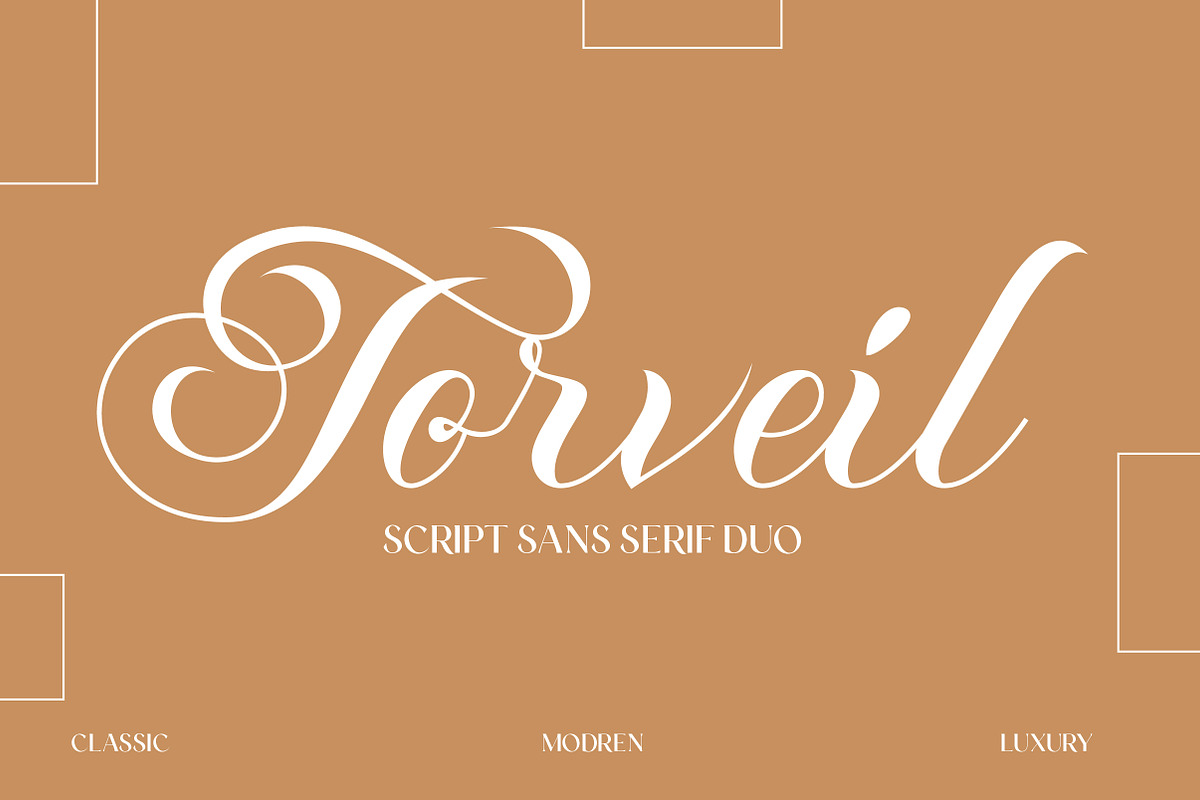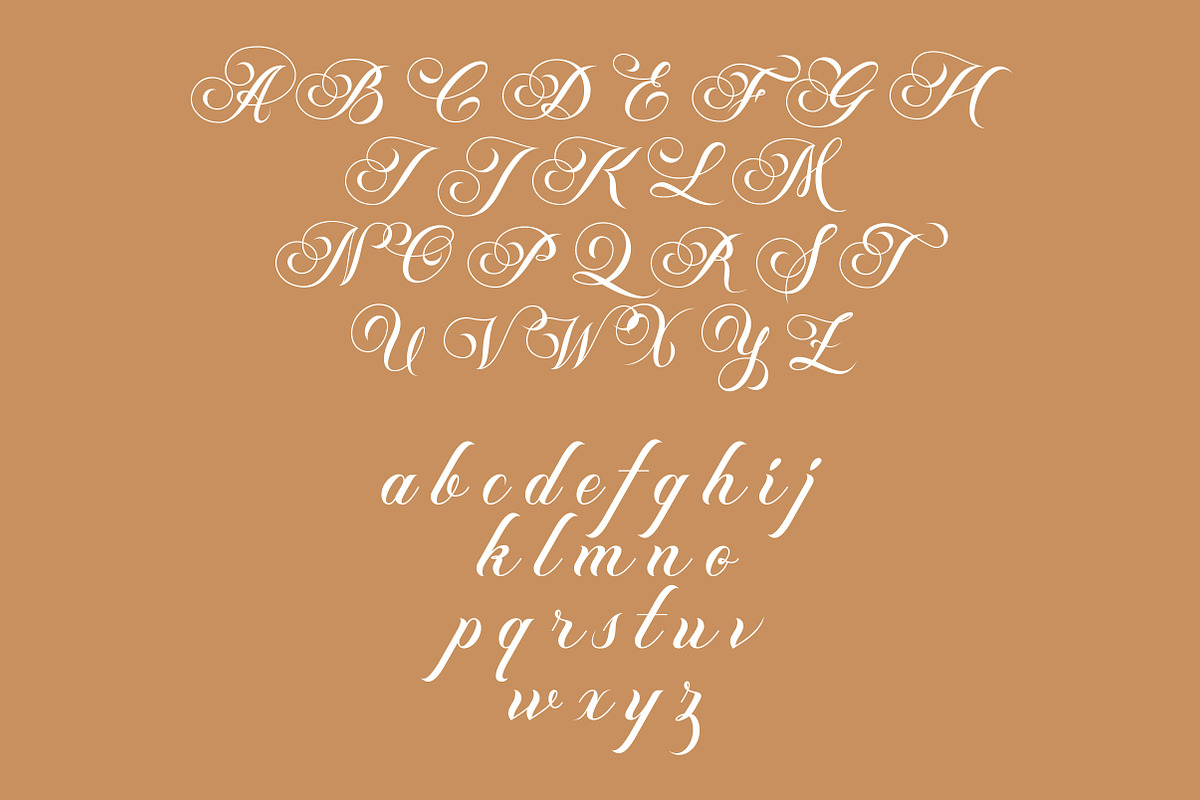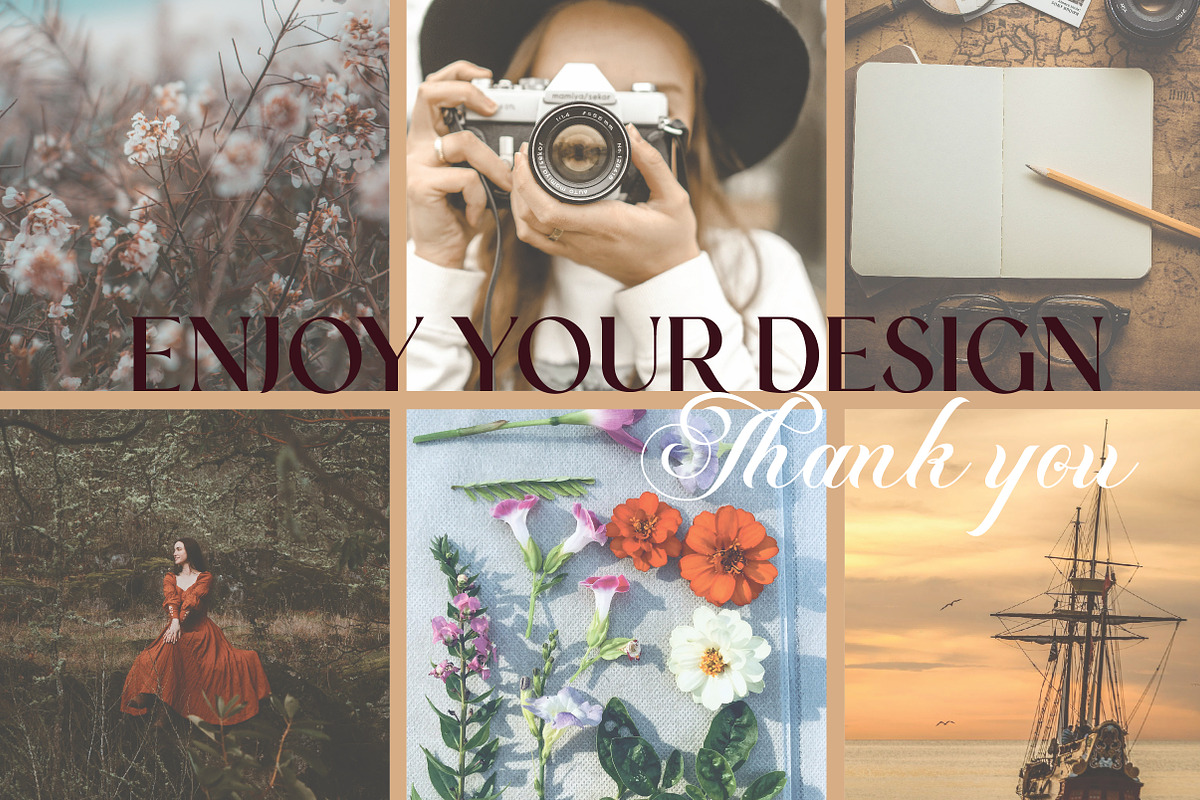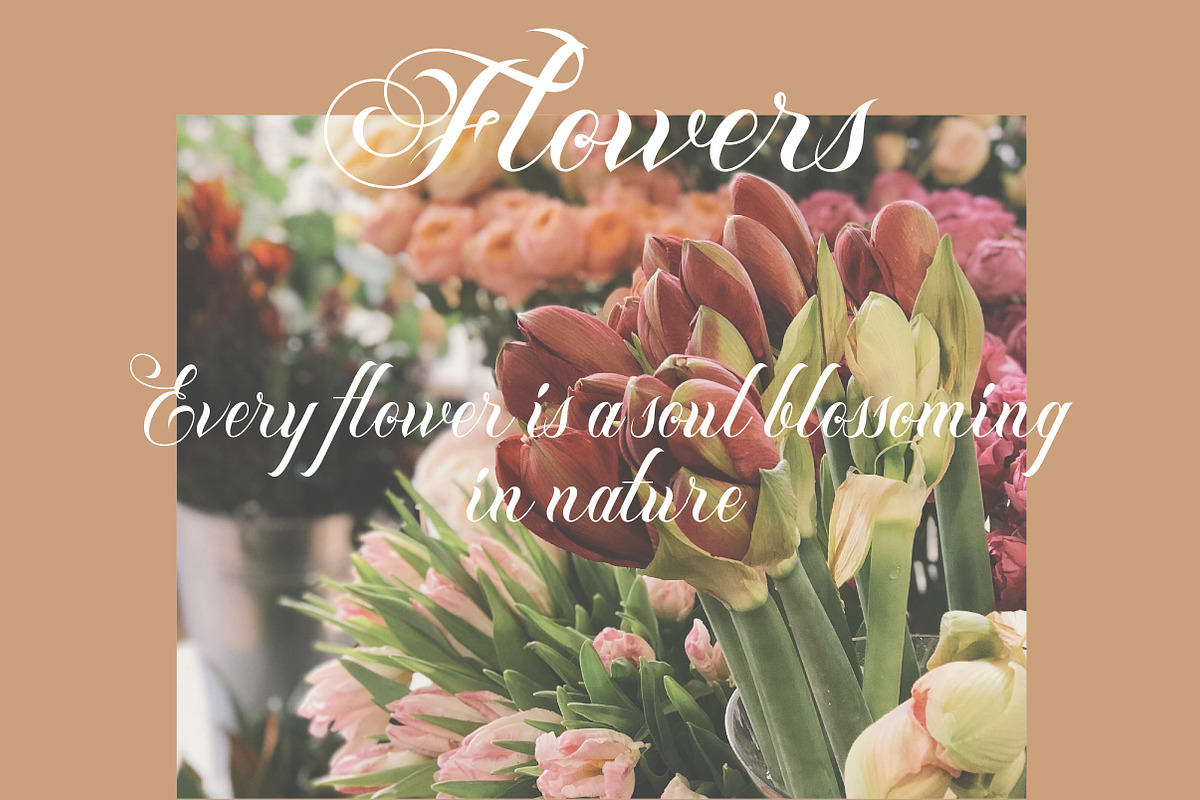
Torveil | Script Serif Typeface
Torveil is a sophisticated Script Italic Serif Typeface that blends classic elegance with a modern, handwritten touch. Featuring graceful curves, delicate swashes, and high-contrast strokes, Torveil brings charm and personality to every letter.
Designed for branding, wedding stationery, luxury packaging, social media graphics, and elegant logo designs, Torveil offers a refined script style that feels both expressive and polished.
Its fluid, calligraphic structure maintains excellent readability while delivering an elevated aesthetic—perfect for designers who want to make a romantic or high-end visual impact.